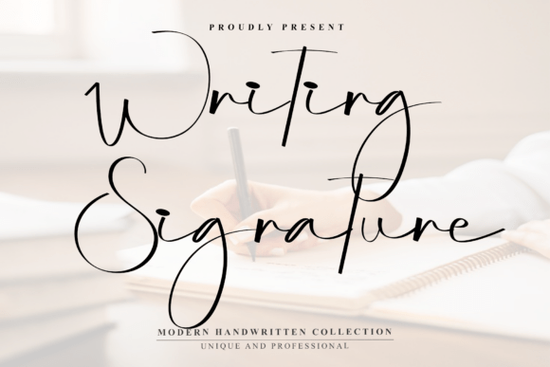
Looking for a handwriting-style font that feels personal yet polished? Writing Signature is a standout choice for anyone wanting a natural, expressive typeface with just the right balance of warmth and structure. It’s not just another script its thick, rhythmic strokes have a subtle bounce that makes it feel alive on the page, like a real pen moving across paper.
What makes Writing Signature different from other handwritten fonts?
While many script fonts lean too much toward either playful or overly decorative, Writing Signature walks a middle path. The letterforms are well-proportioned, so they don’t get lost in busy layouts. That means it works just as well on a minimalist product label as it does on a rustic wedding invitation or travel brochure.
The rhythm in its strokes gives it a handmade quality without feeling sloppy. It’s perfect when you want to convey authenticity whether you’re branding an outdoor gear company, designing packaging for organic skincare, or creating invitations for a countryside celebration.
Where can you use this font effectively?
- Outdoor & adventure brands: Think hiking gear, campsite merch, or eco-friendly apparel this font adds a human touch that feels genuine.
- Organic or natural product packaging: It pairs beautifully with earth-toned designs and botanical illustrations.
- Travel-themed visuals: Ideal for postcards, maps, or social media graphics that evoke wanderlust.
- Rustic event invites: Use it for weddings, baby showers, or garden parties where a warm, personal vibe matters.
You’ll also find it useful in print-on-demand projects. Because it’s part of the “Unique and Professional” collection, it holds up well at small sizes and in high-contrast prints.
How does it fit into your creative workflow?
Whether you're using Adobe Illustrator, Canva, or Affinity Designer, Writing Signature integrates smoothly. It’s designed with clear spacing and consistent stroke weights, which reduces the need for manual adjustments. You can apply it confidently to headlines, logos, or even body text in short formats.
If you’ve been searching for a script font that doesn’t distract but still stands out, this one delivers. It’s not flashy, but it has presence like a signature you’d trust to sign a contract or a note left on a doorstep.
Why designers and crafters choose this font
Many creatives appreciate how this font balances charm with clarity. Unlike some scripts that struggle to read at smaller sizes, Writing Signature maintains legibility even when used in tight spaces. Its strong baseline ensures alignment stays clean across multiple lines.
It also pairs well with sans-serif fonts try combining it with a simple typeface like Montserrat or Lato for a modern contrast that feels intentional, not random.
Final thoughts: Is this font right for your next project?
If you’re aiming for a design that feels authentic, thoughtful, and slightly adventurous without losing professionalism Writing Signature deserves a spot in your toolkit. It’s not about being loud; it’s about being meaningful.
Try it on a mockup, test it in a real layout, and see how it responds to your vision. Often, the best fonts aren’t the flashiest they’re the ones that simply fit.